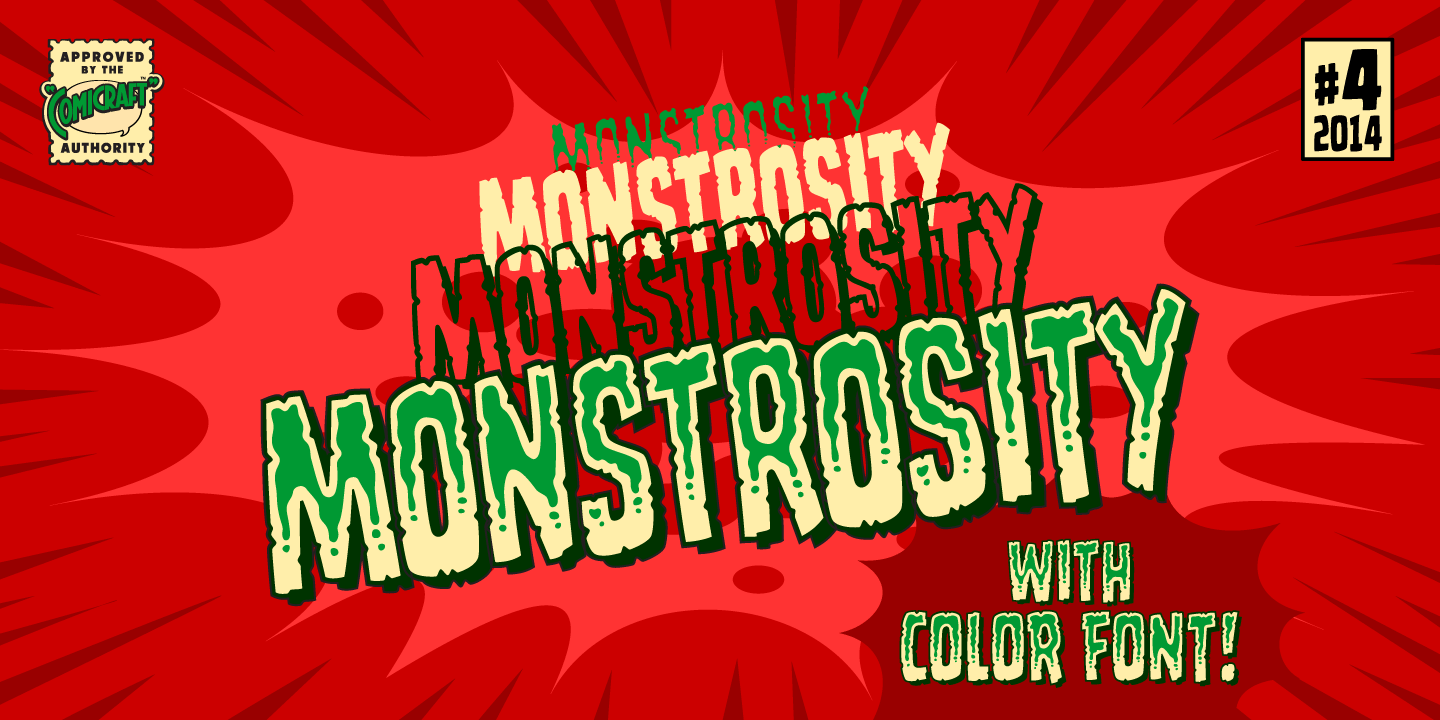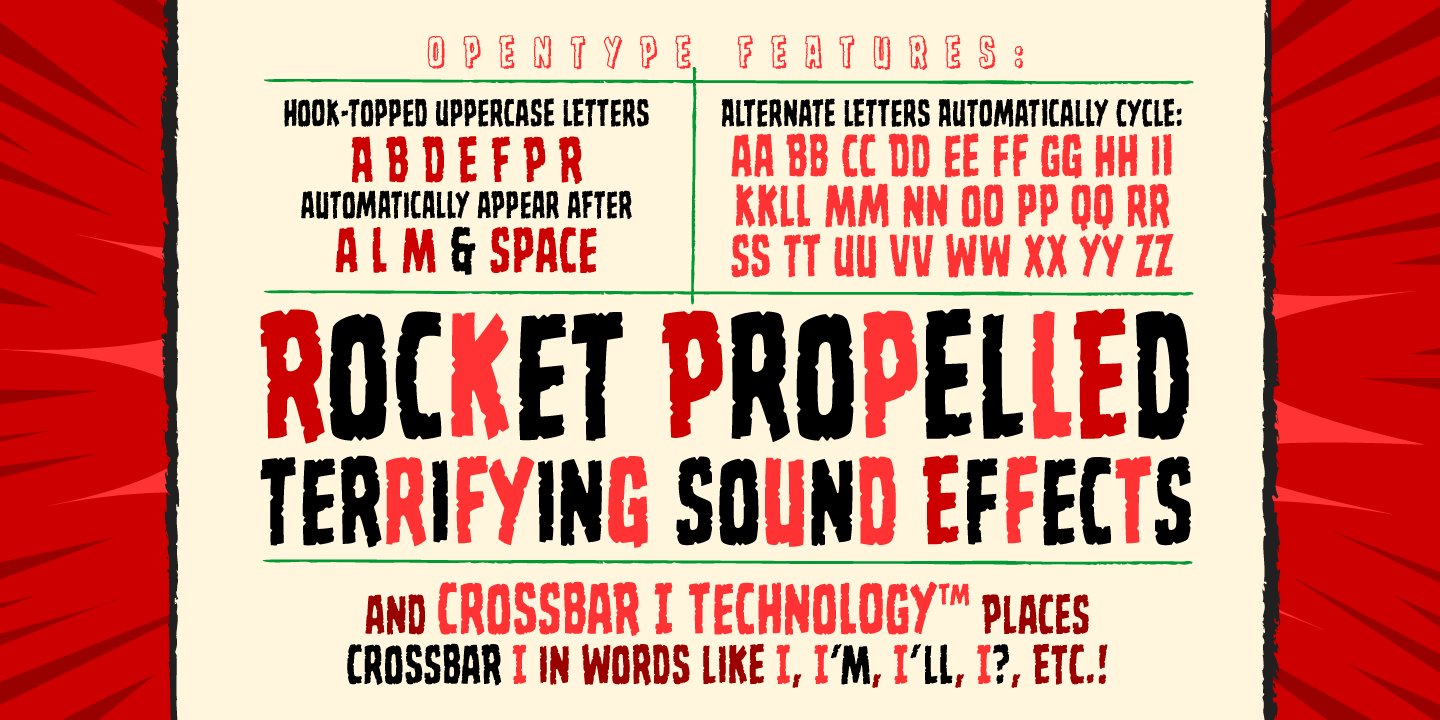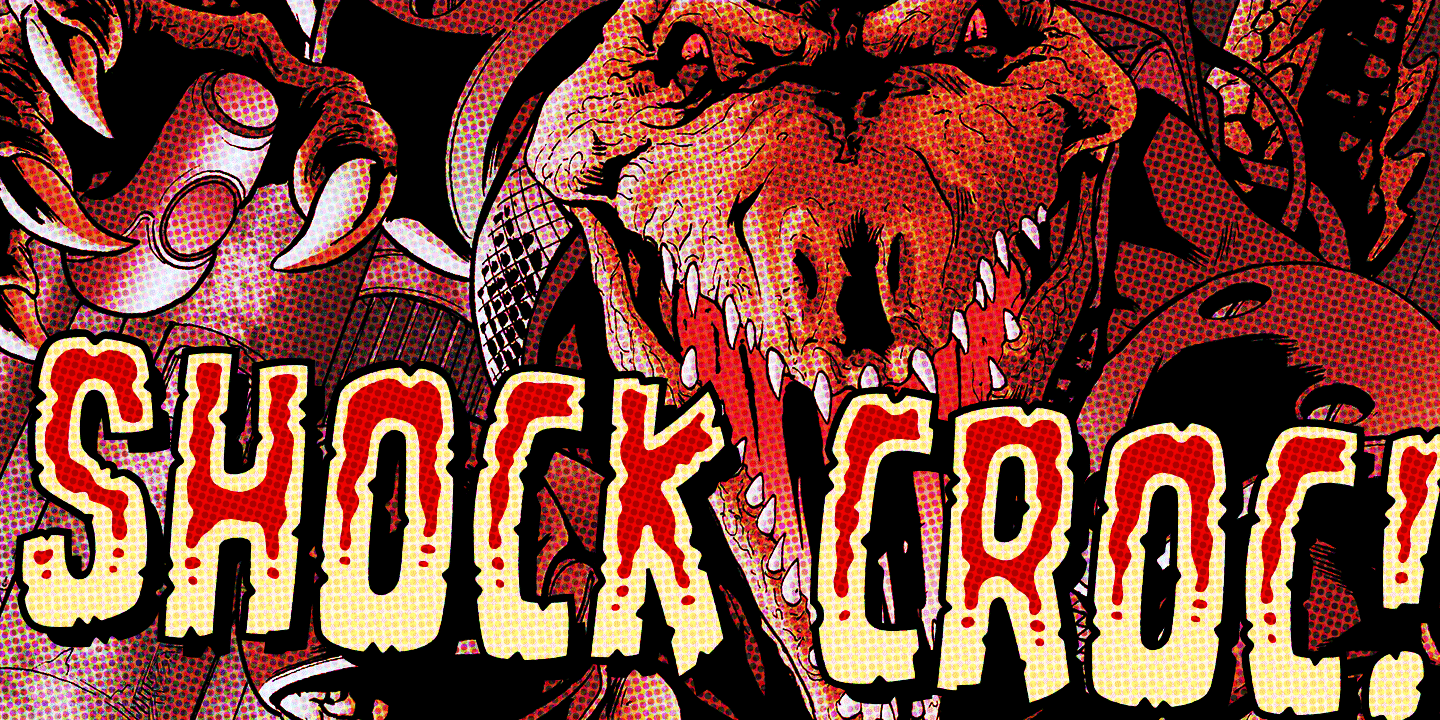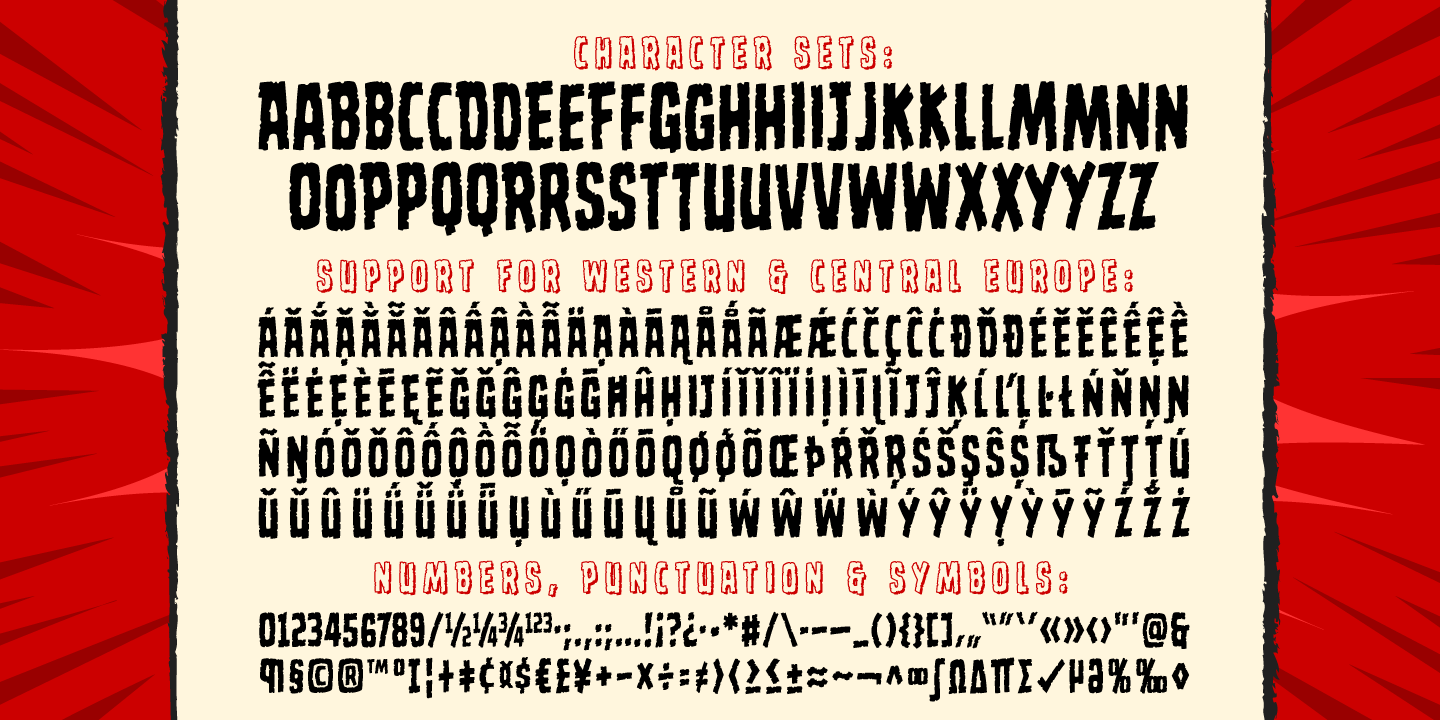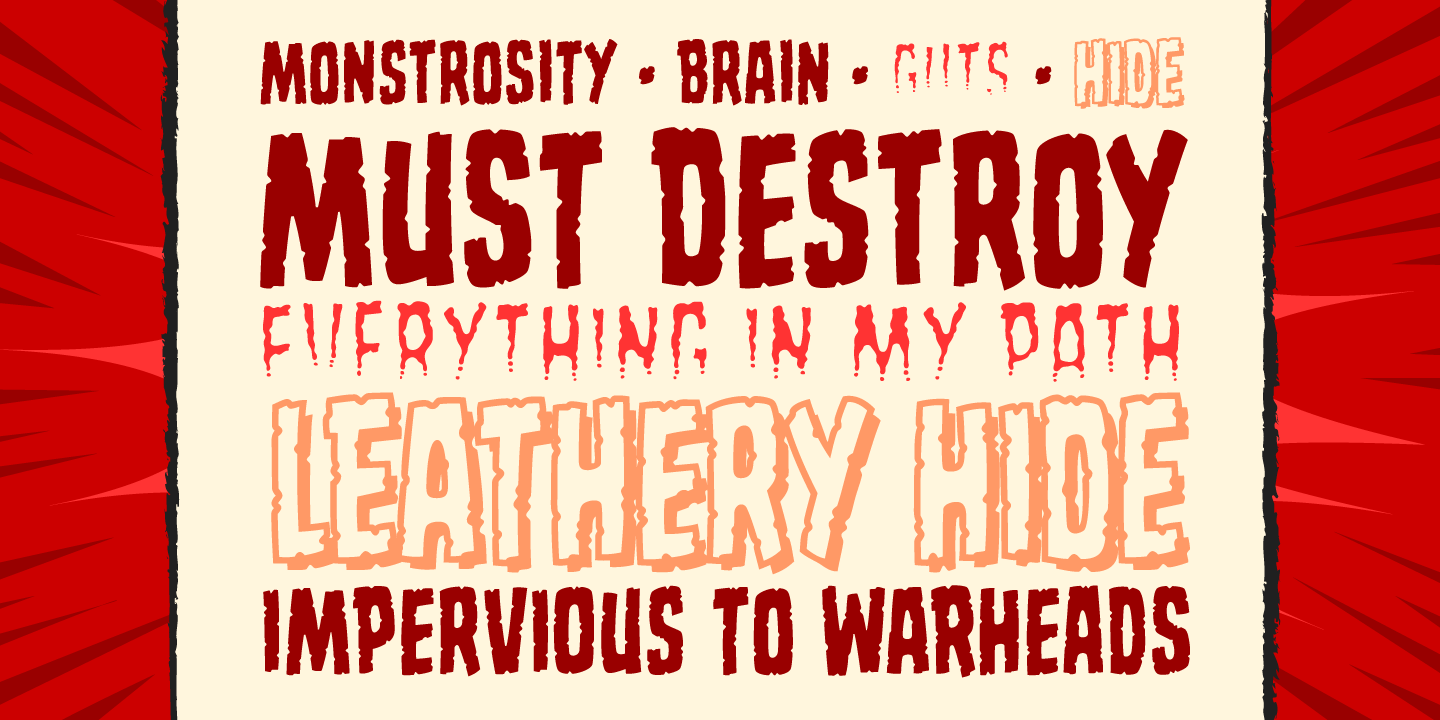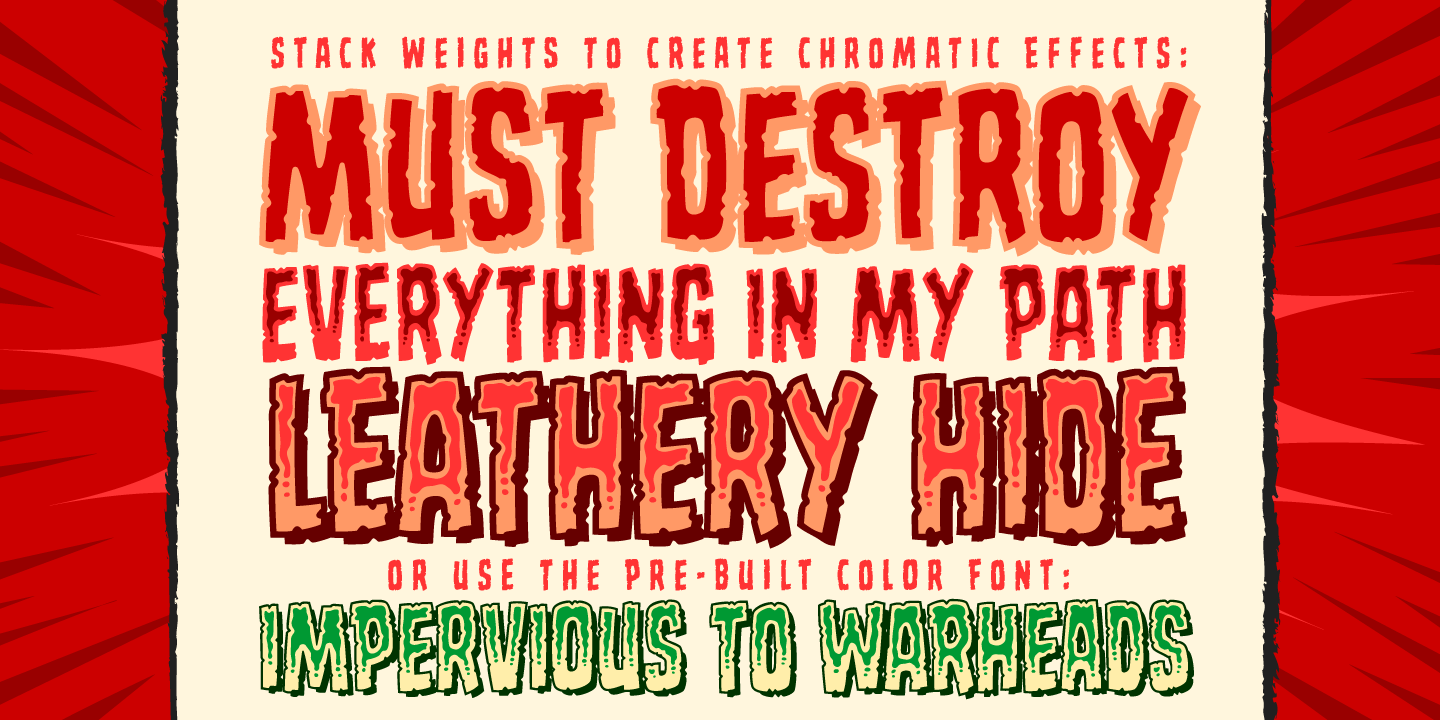
Monstrosity
Font Family by Comicraft Fonts
It breathes fire and its leathery hide is impervious to rocket propelled grenades and drone warheads! MONSTROSITY is a font that destroys everything in its path. Is it a terrifying sound effect font or does it just want to be loved? One thing's for sure – no one is safe!